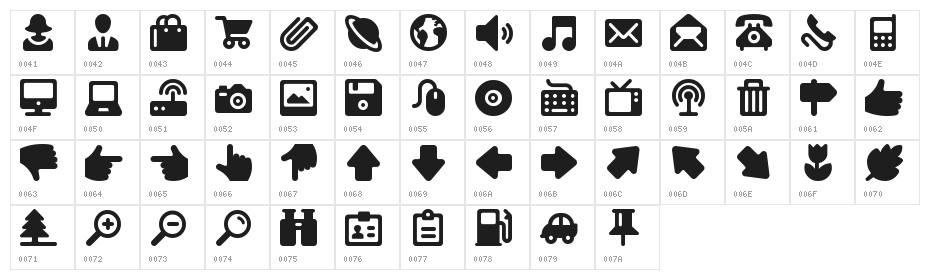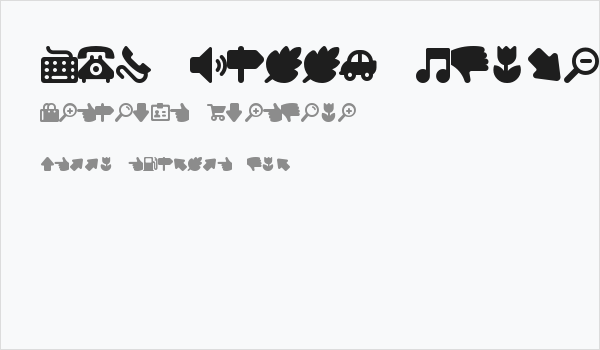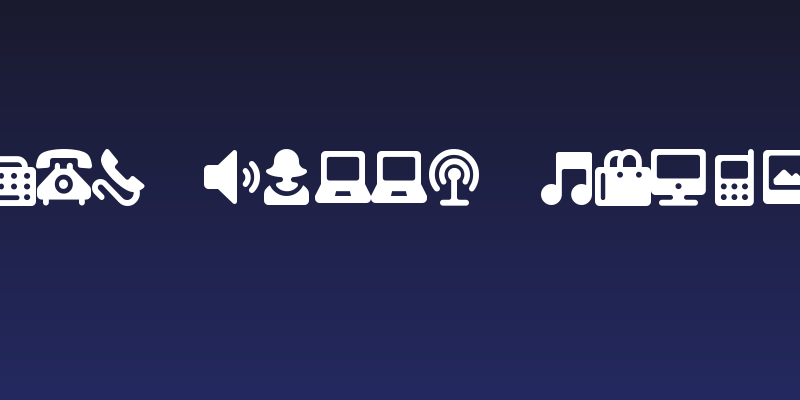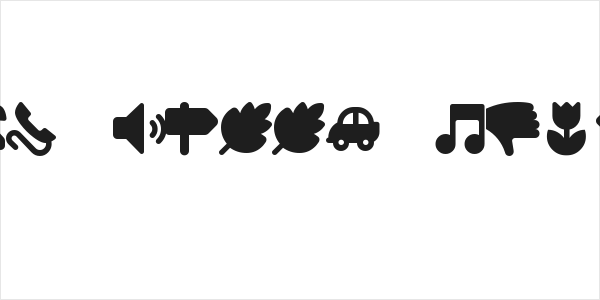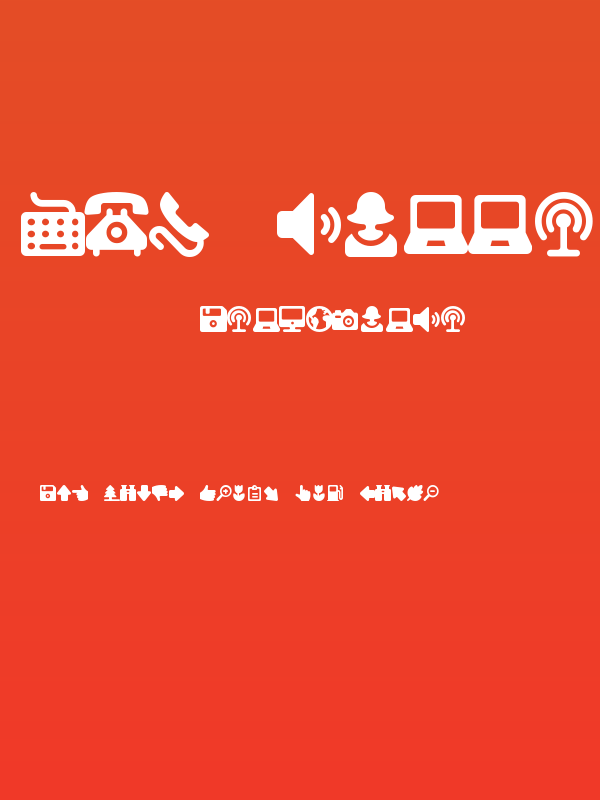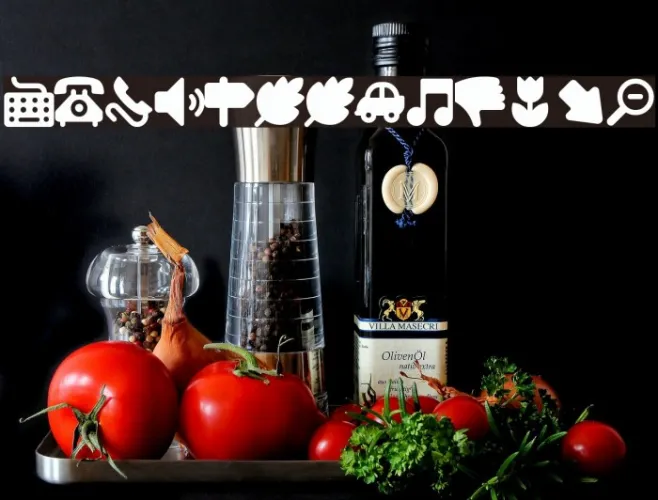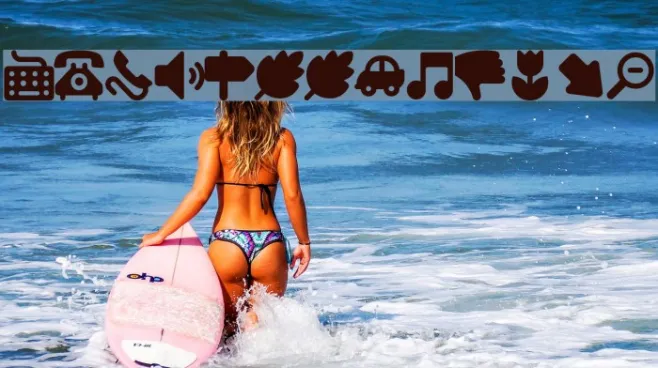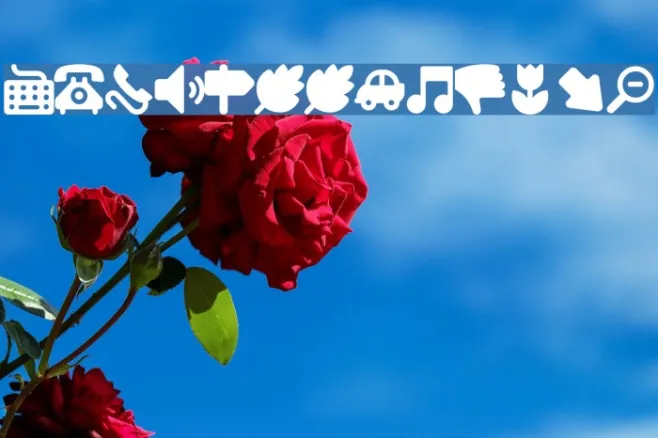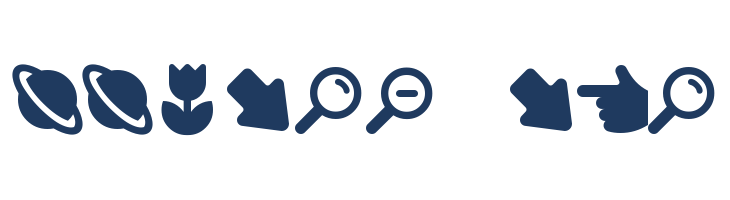
WLM-Happy-Icons Font
A collection of bold, solid black pictogram icons representing various objects, actions, and symbols, with consistent line thickness and simple, easily recognizable shapes. The icons include people, technology, communication, navigation, nature, and office-related imagery, all rendered in a unified, playful style.
| Overall Style | Decorative, Playful, Modern |
| Use Case | Icons, UI elements, infographics, signage |
| Proposed Projects | Mobile apps, infographics, signage, educational materials, user interfaces, presentations. |